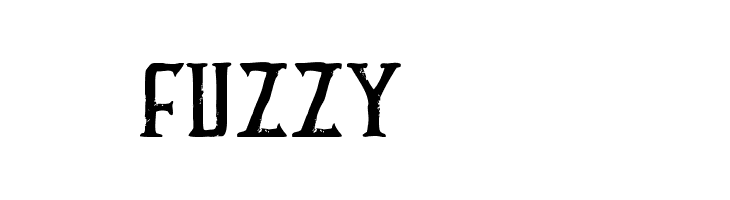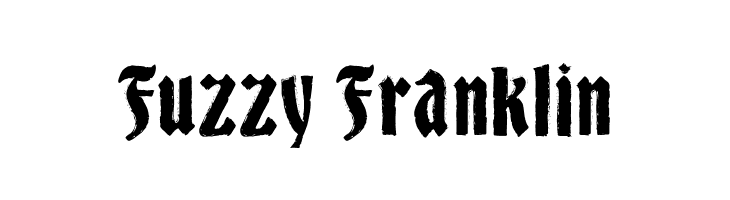
A playful, handwritten font with rounded, consistent strokes.
A playful, bold font with a fuzzy texture and lively appearance.
A bold, distressed font with a vintage, rugged appearance.
A bold, decorative font with a stencil-like, industrial design.
A bold, blackletter-style font with sharp, angular strokes and a gothic flair.